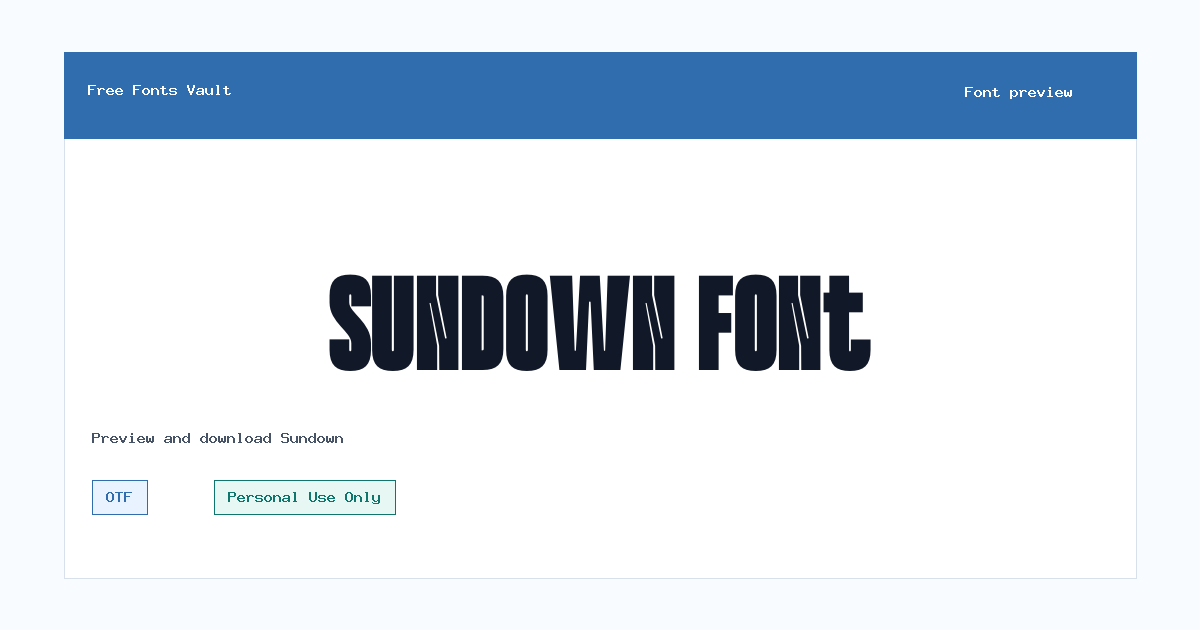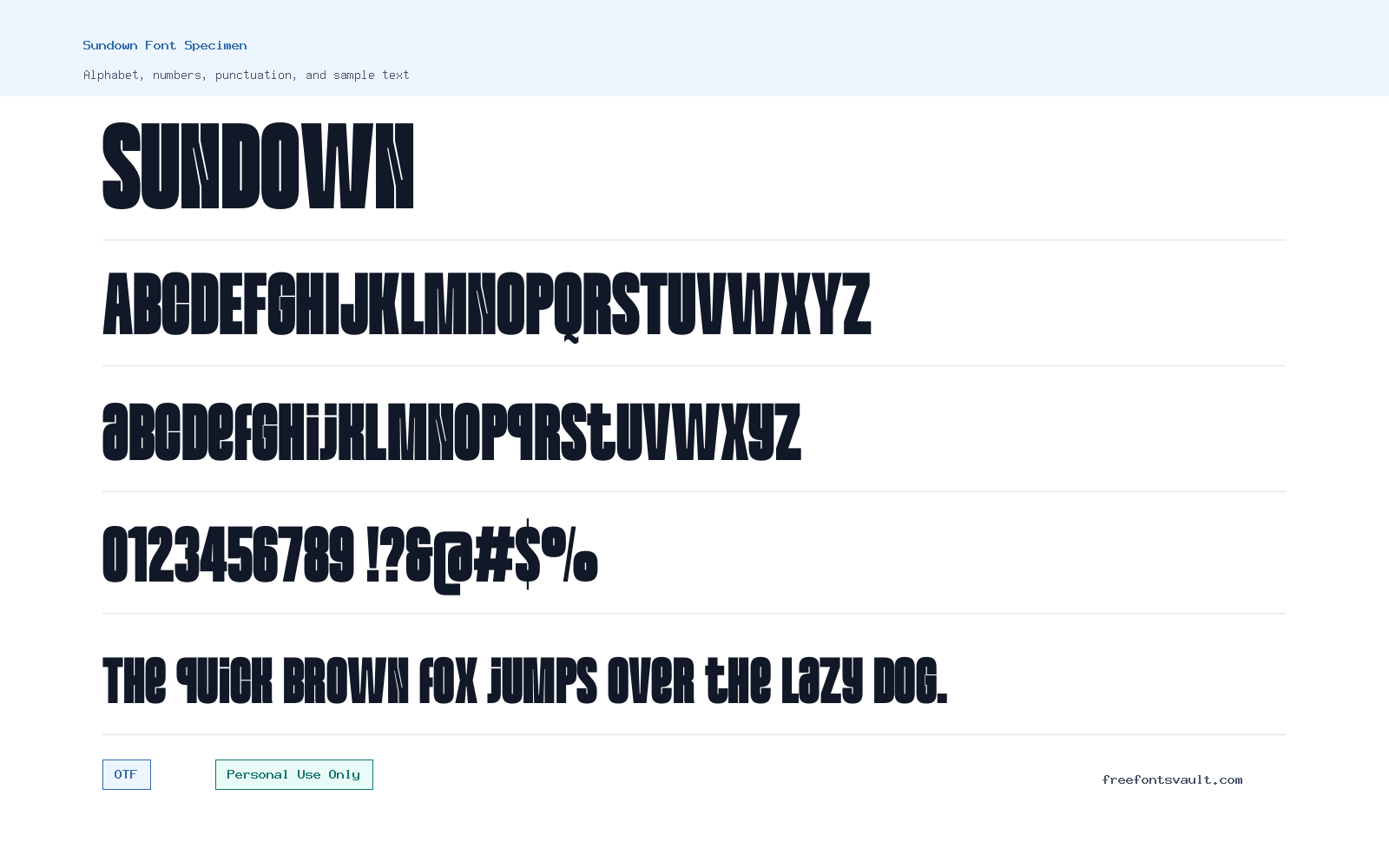
Sundown
- Designer Funtype Co.
- Foundry Funtype Co.
Sundown font.
Sundown is a display font from Funtype Co. with a single regular OTF style. It is best approached as a headline font: try it in the preview with short words, names, and title lines before using it in a finished design.
About Sundown Font
Sundown is made for moments where the type needs to carry the visual mood rather than sit quietly in the background. The name suggests a warm, evening-toned personality, so it can work well for designs that need a relaxed but noticeable display face. Because only the regular style is listed, the font is most useful when you want one clear typographic voice instead of a full family with many weights.
Use Sundown for short text first: poster headings, social graphics, logo drafts, packaging concepts, invitations, mood boards, and website hero titles. Test your own words in the font preview, especially if your design includes mixed case, numbers, punctuation, or longer phrases. Display fonts can lose impact when they are forced into small sizes or dense paragraphs, so pair Sundown with a plain sans serif or readable serif for body copy.
- Display-focused regular style suitable for headlines and short text
- Single-weight family, useful for simple title treatments and quick mockups
- Works best when paired with a more neutral text font for longer reading
- Logo concepts and branding mockups
- Social media quote cards or announcement images
- Packaging labels, invitations, and mood-board typography
- Website hero headings where only a few words need emphasis
Who designed Sundown?
Sundown is credited to Funtype Co., which is also listed as the foundry.
What is Sundown best used for?
Sundown is best for short display text such as titles, posters, social graphics, invitation headings, logo drafts, and branding mockups.
Can I use Sundown for body text?
It is better suited to display use. For paragraphs or smaller text, pair it with a cleaner, more readable font and reserve Sundown for headings.